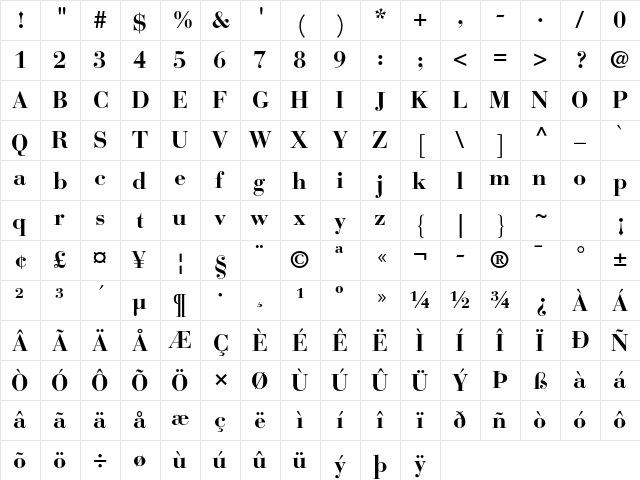
Bauer Bodoni Std 1 Bold
| Designer | Heinrich Jost, Louis Hڬl |
Design Context for Bauer Bodoni Std 1 Typeface
Bauer Bodoni Std 1 offers clean, dependable letterforms without strong stylistic allegiance, making it a practical choice for designers who need flexibility. The heavy weight commands attention and anchors typographic hierarchies.